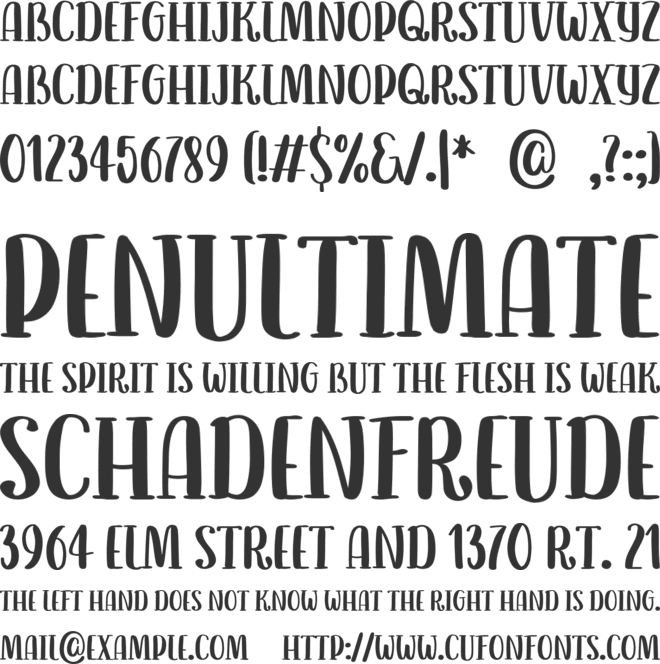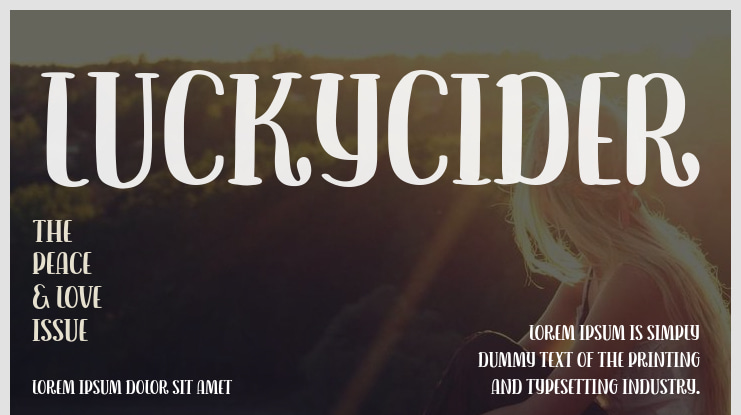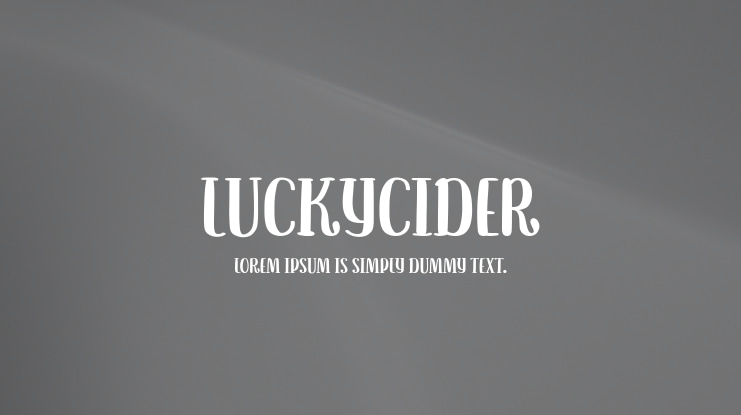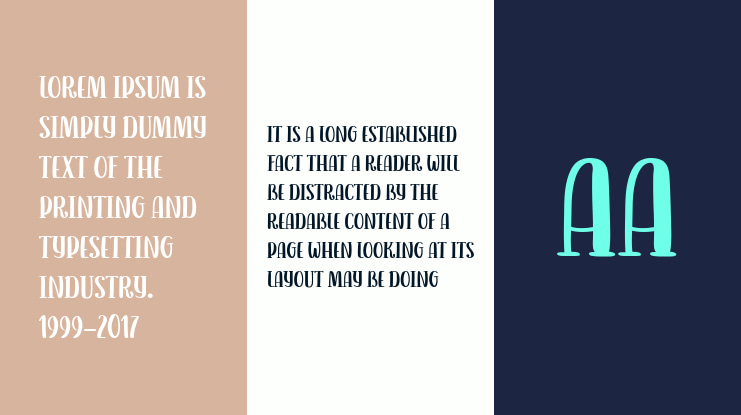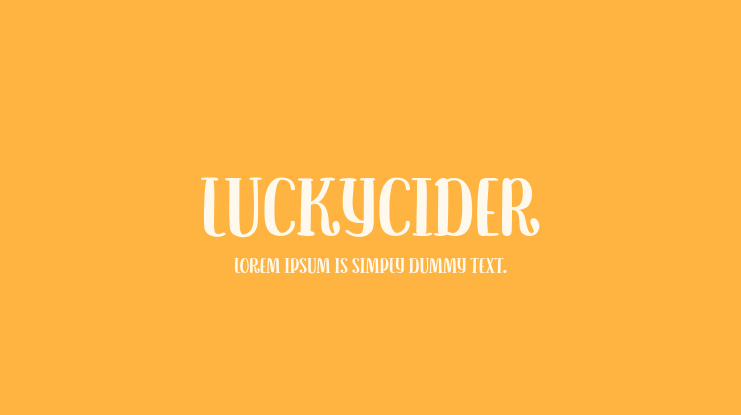
LuckyCider Font
"Lucky Cider" – a typeface brimming with twists, turns, and playful curls. This handwritten font brings a lively spirit to your designs, perfect for capturing the essence of spontaneity and joy. Each stroke tells a story of carefree days and adds a personal touch to your creative projects.